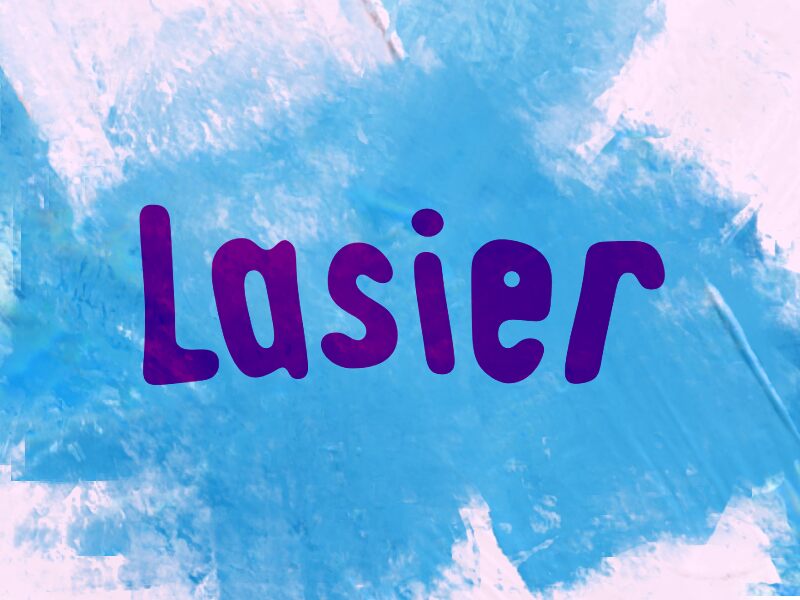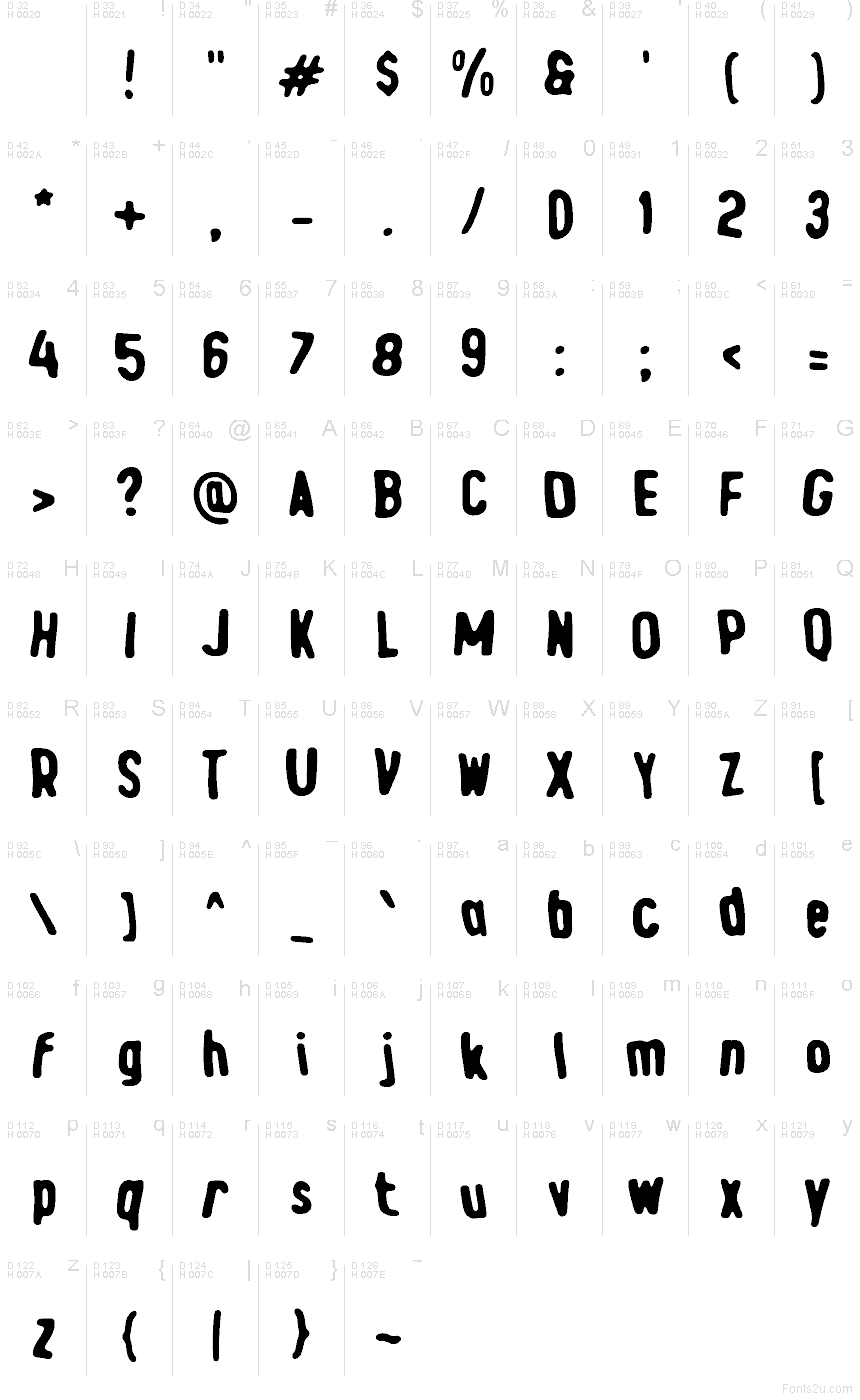
Lasier by Wep is a free wobbly display font with a hand-melted, cartoonish bounce. The letters look soft and slightly off-kilter, with bulbous curves, uneven rhythm, and a playful looseness that feels more doodled than engineered.
That makes it a natural pick for poster headlines, album art, youth branding, packaging, and title cards where a little visual wobble helps set the tone fast. As a free font, Lasier works best in short bursts - logos, cover lines, stickers, and splashy social graphics - because the chunky, rubbery forms keep even simple words feeling animated.
Lasier